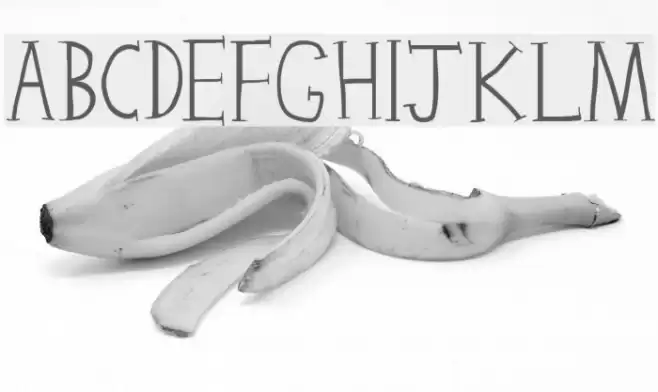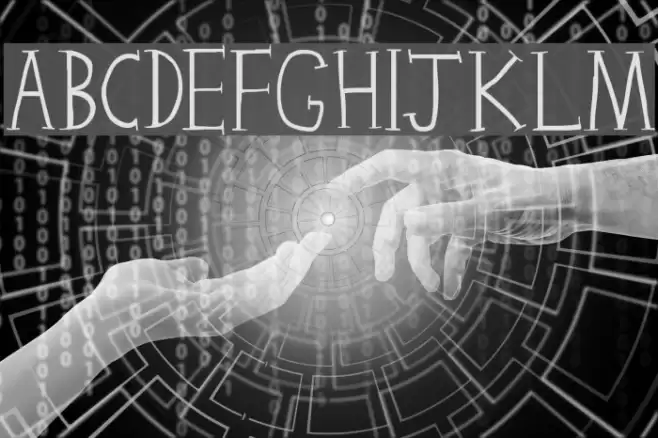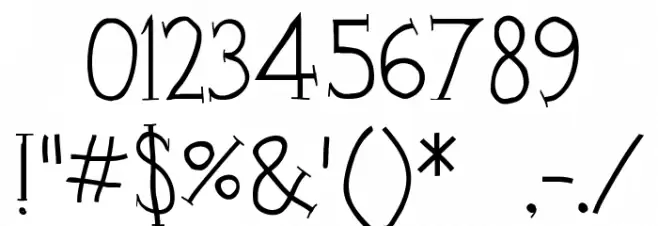
Clink Font
Clink Description
This font features a unique and playful design with a whimsical touch. The characters have a hand-drawn appearance, with slight irregularities that add to its charm. The uppercase letters are tall and slender, while the lowercase letters maintain a consistent style with rounded edges and slight curls. Numbers are clear and easy to read, matching the overall playful aesthetic. The special characters are creatively designed, fitting seamlessly with the rest of the font. This font is ideal for projects that require a fun and informal look, such as children's books, greeting cards, or playful branding.
A whimsical, hand-drawn font with playful, rounded characters from Crazy fonts.
- Overall Style: Playful